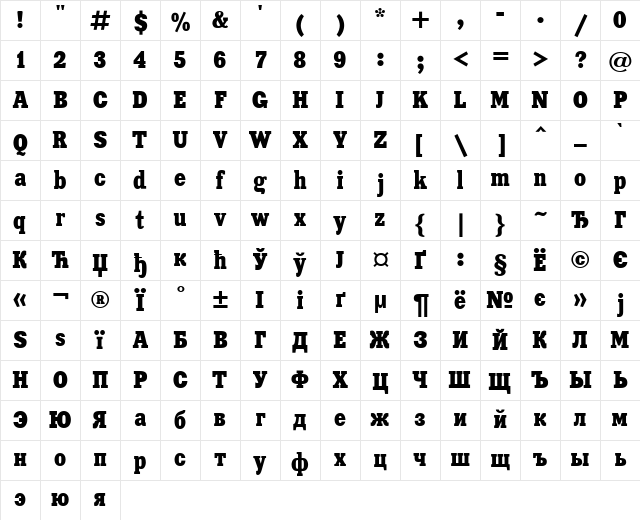
Xenia Condensed Cyrillic Free Font
Xenia Condensed Cyrillic
Style: Cyrillic
Design Context for Xenia Condensed
Xenia Condensed is a composed and adaptable typeface that performs quietly and consistently across a wide range of design contexts. Its narrow stance lets it pack a punch even in space-constrained designs.